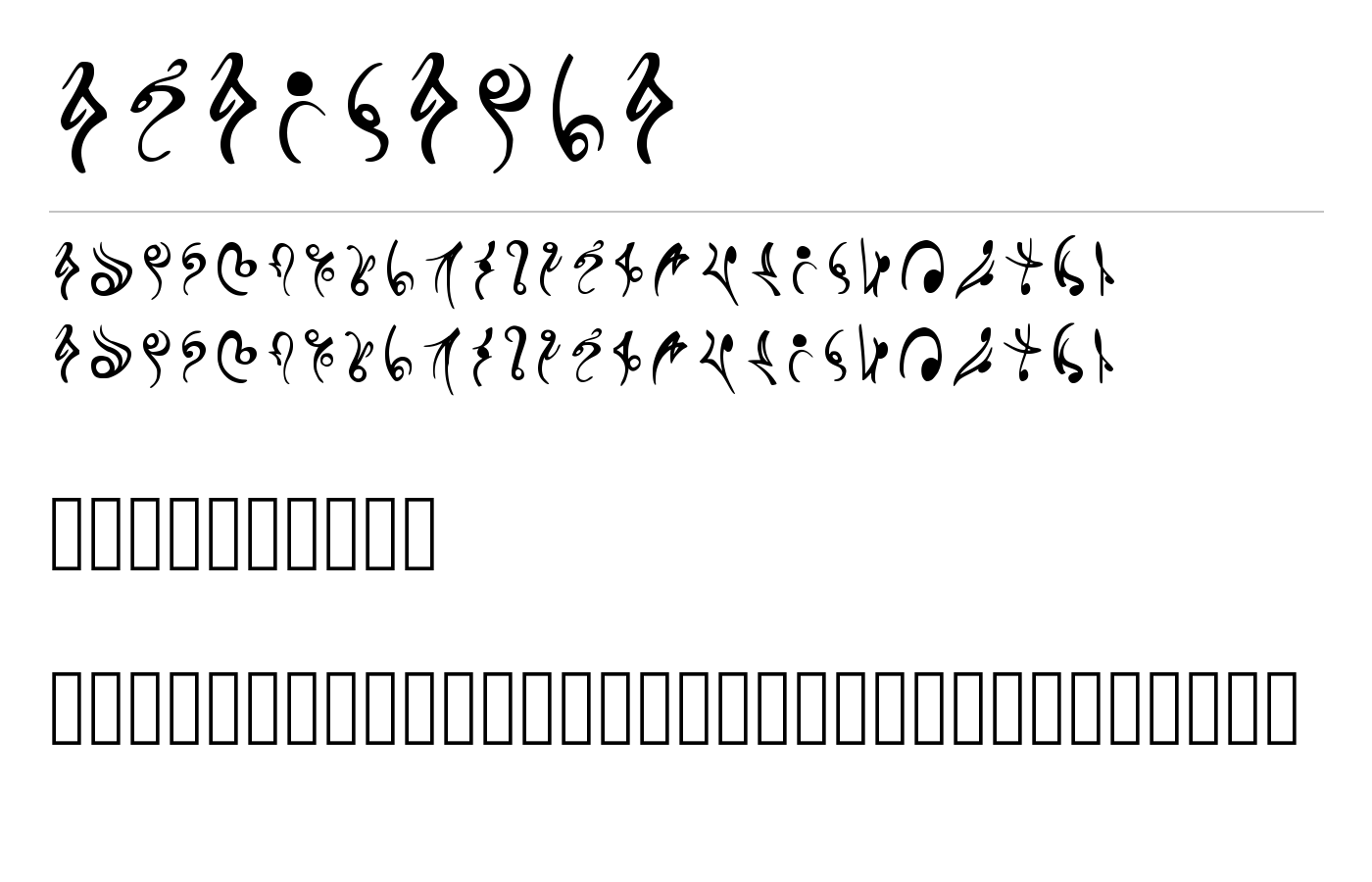
Anastacia is a decorative, script-inspired font with an artistic and flowing style that evokes a sense of elegance and mystique. Its curvy, calligraphic strokes and unique letterforms give it a creative and exotic personality, making it ideal for eye-catching logos, invitations, and display text where a distinctive, handcrafted look is desired. This font works best in design projects that want to convey sophistication with a touch of fantasy and originality.
Anastacia Font
About Anastacia Font